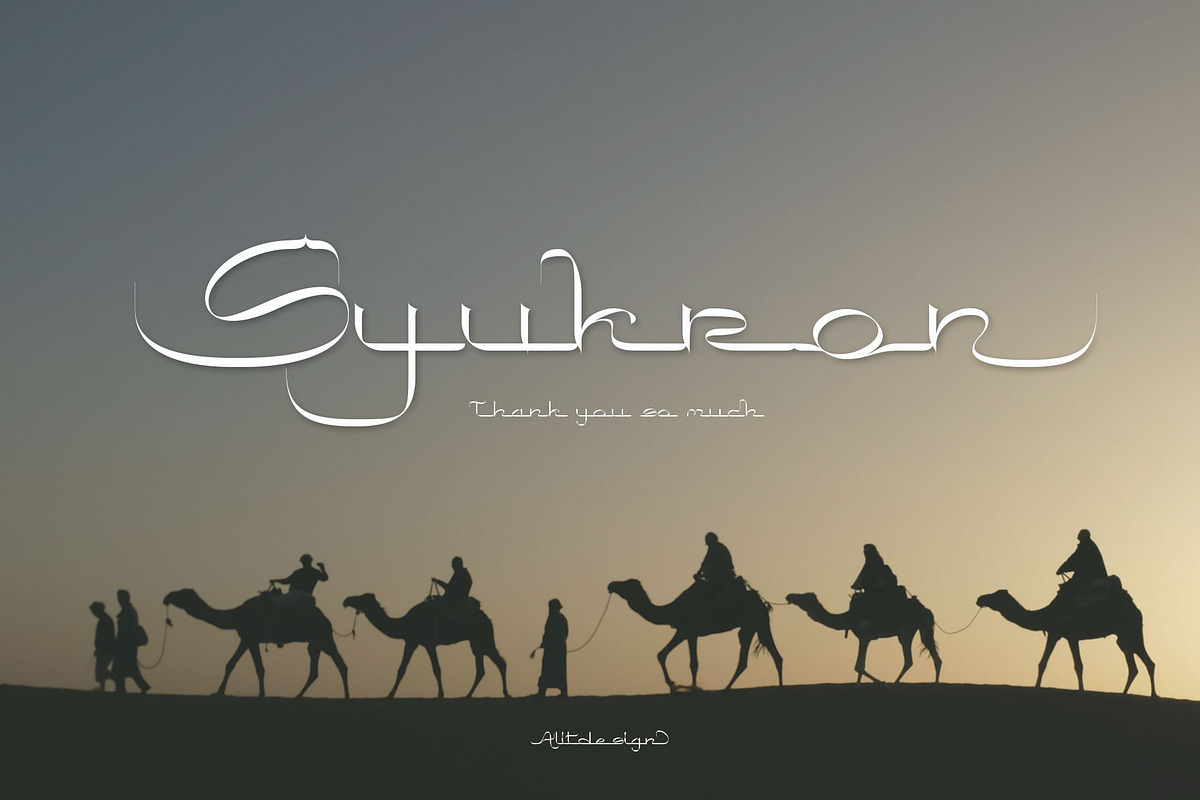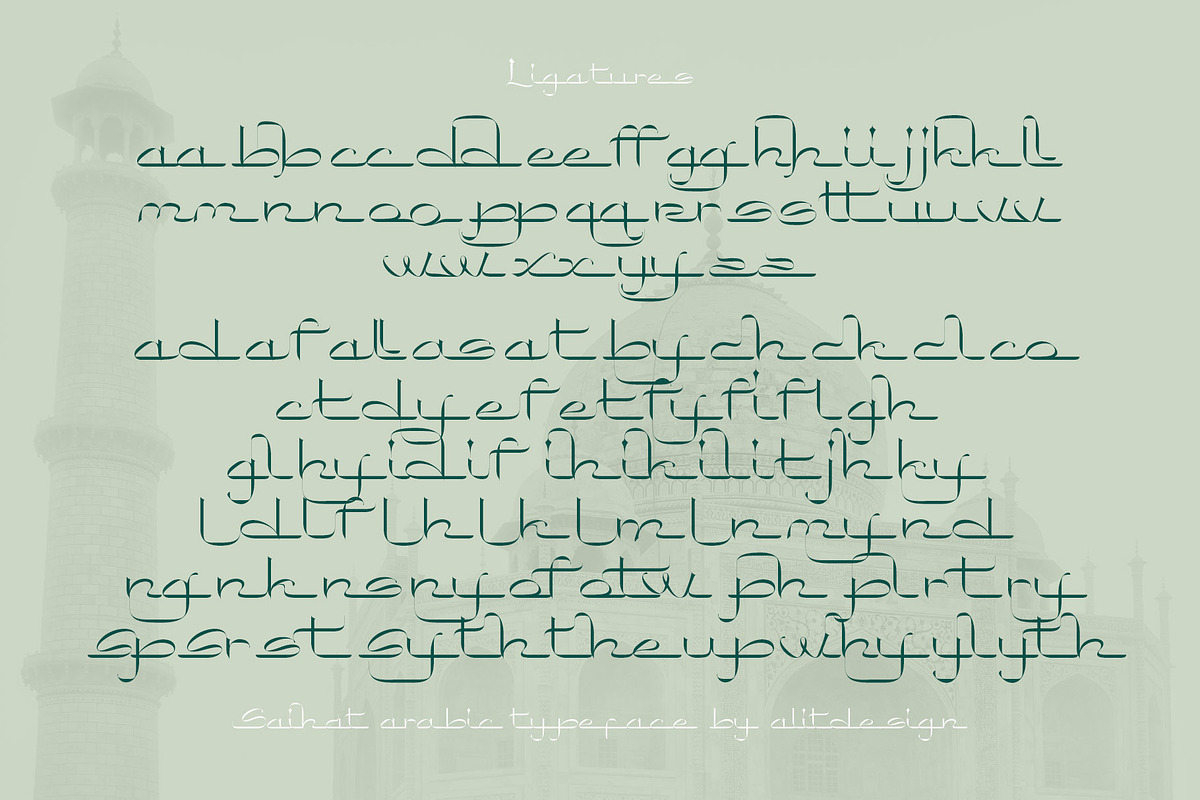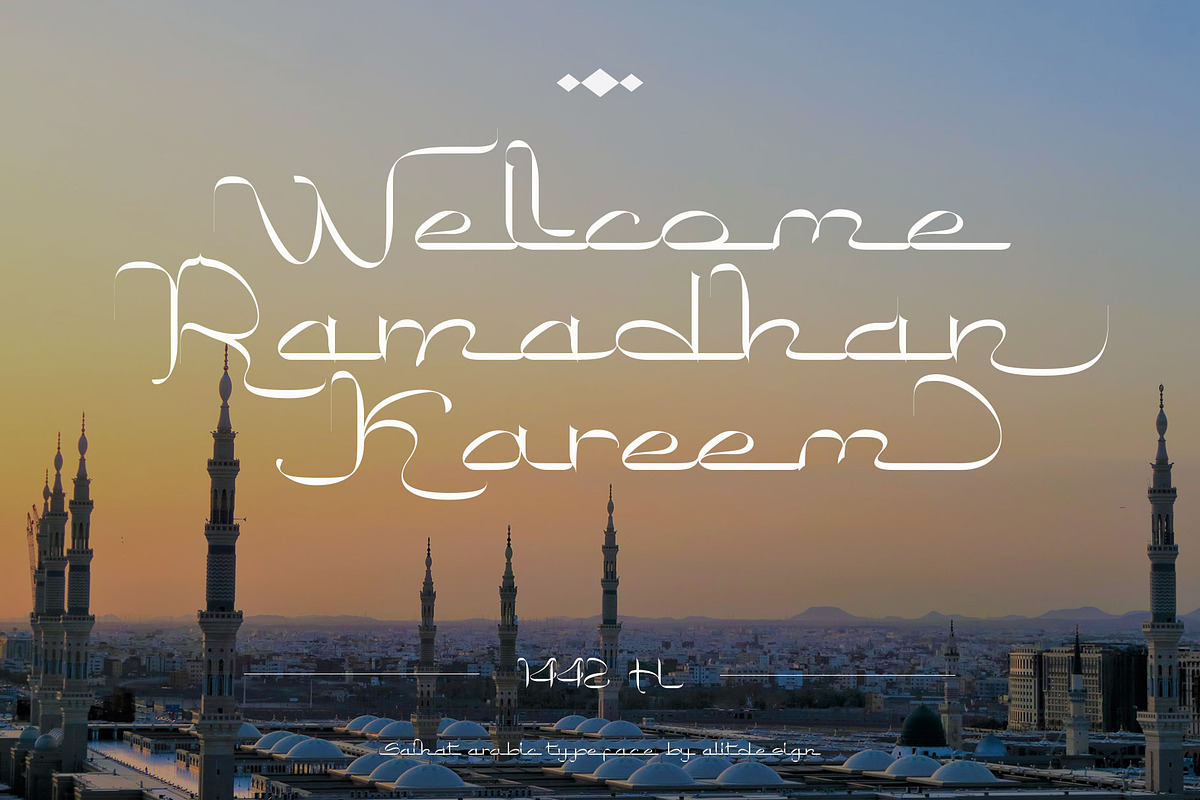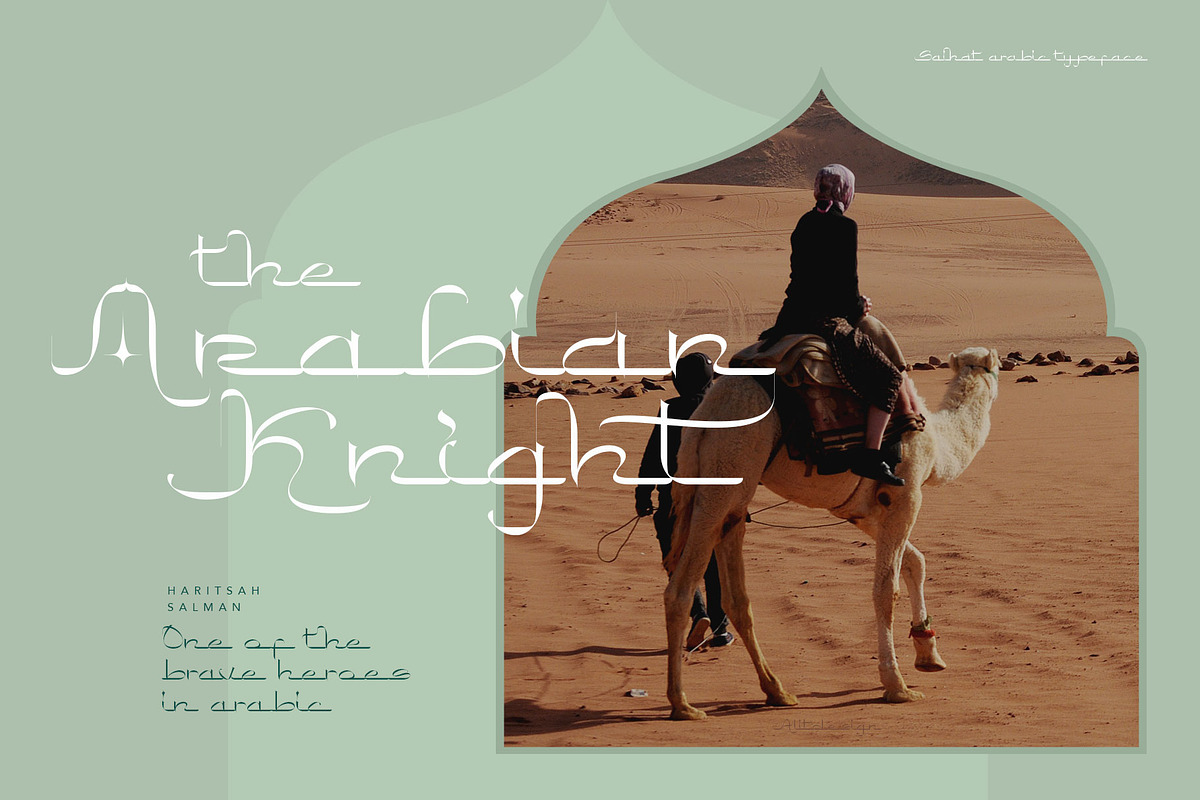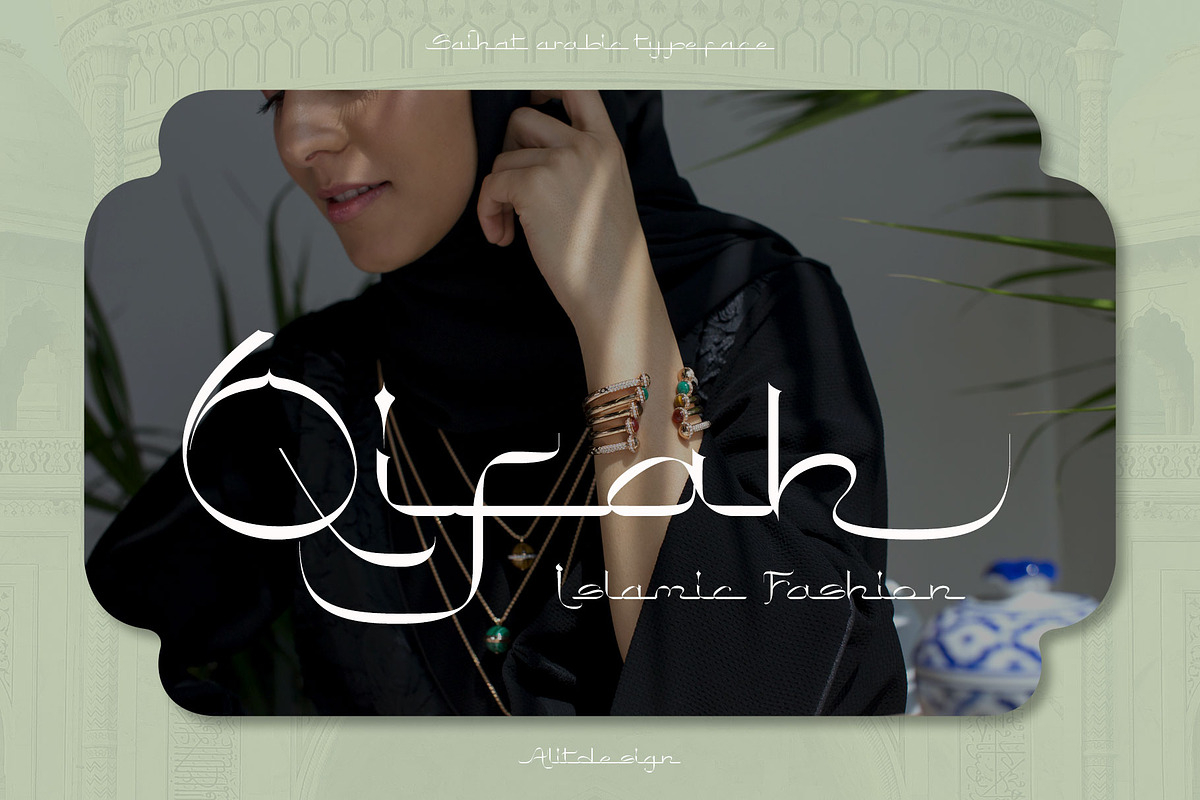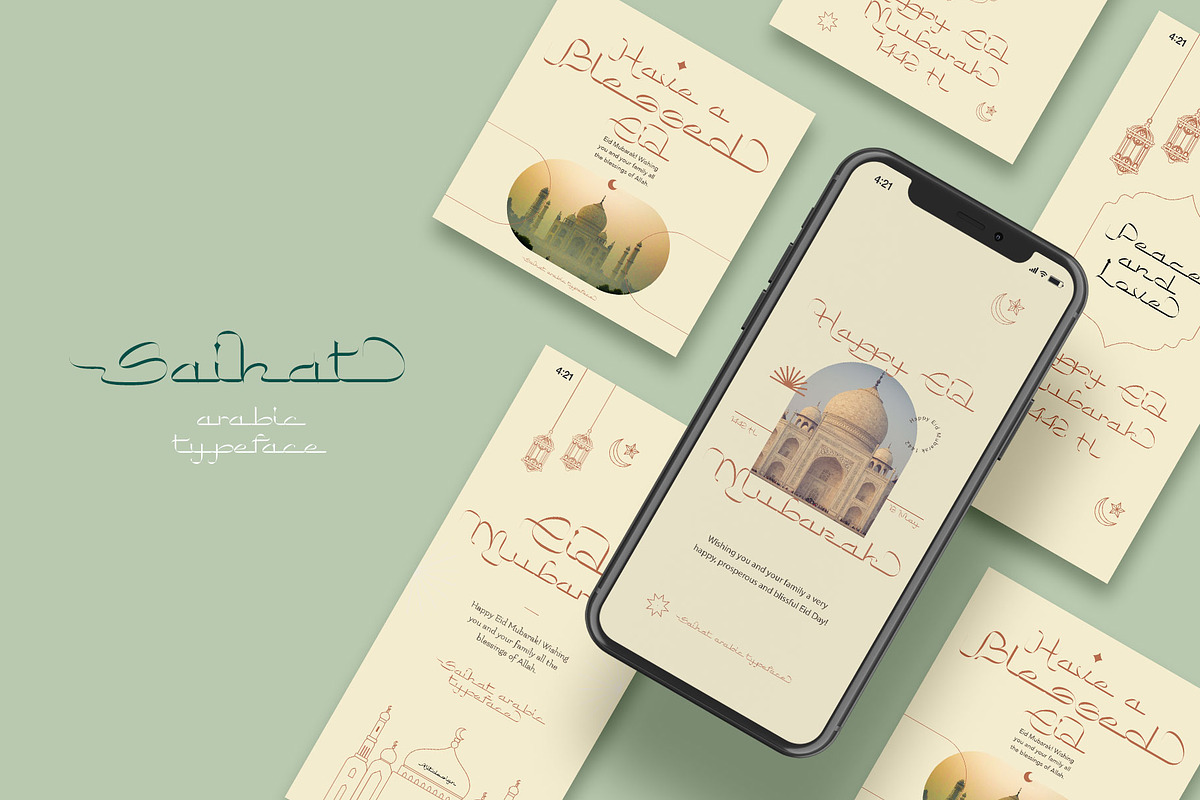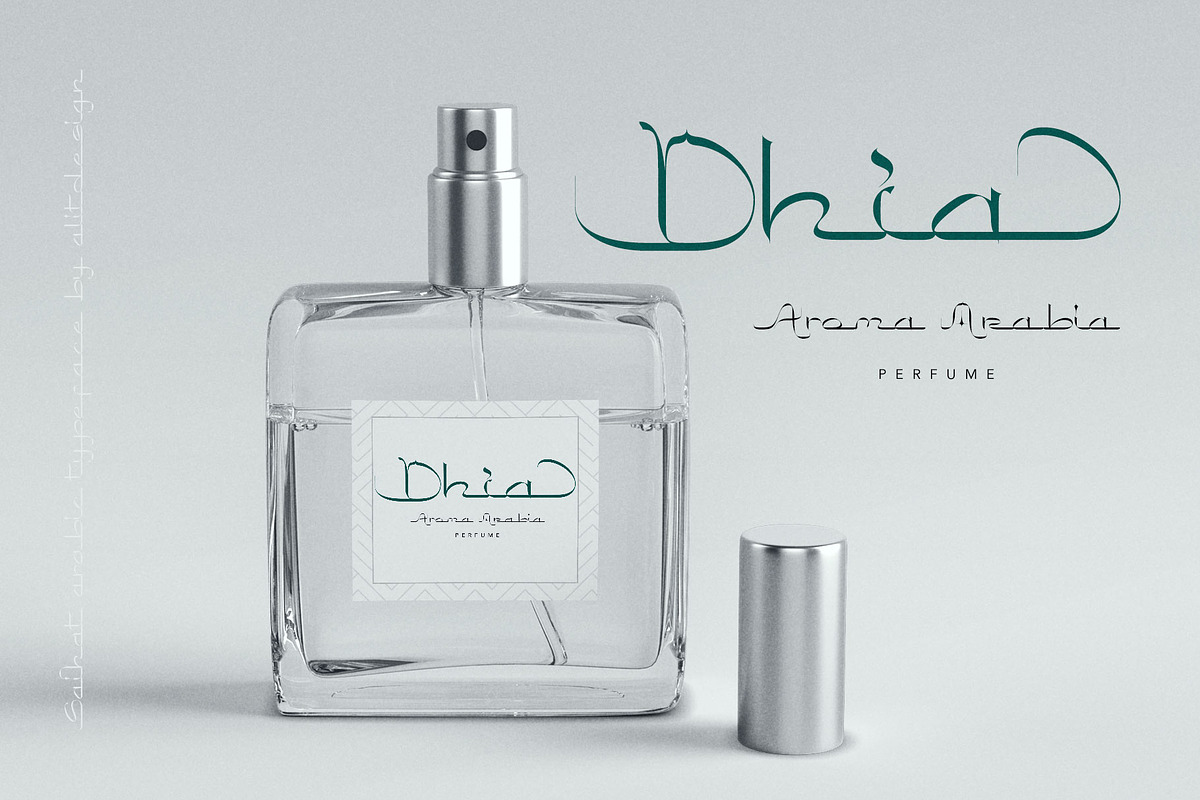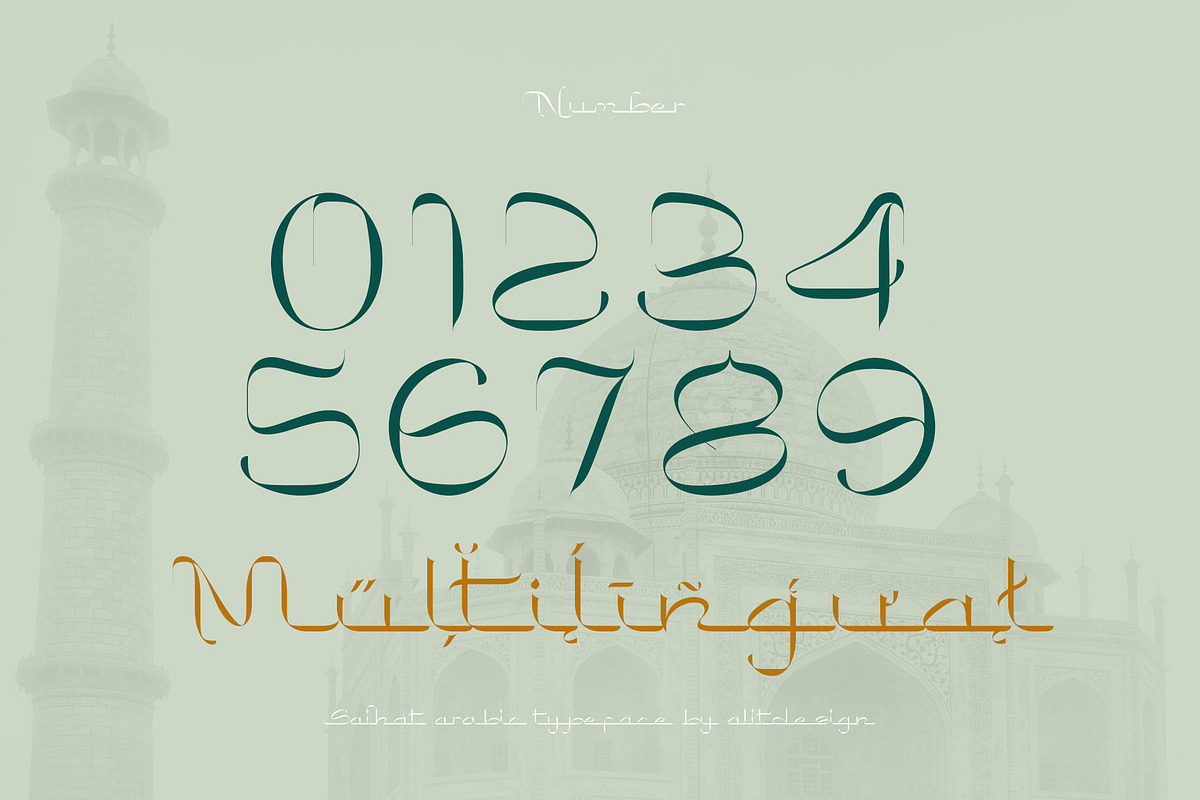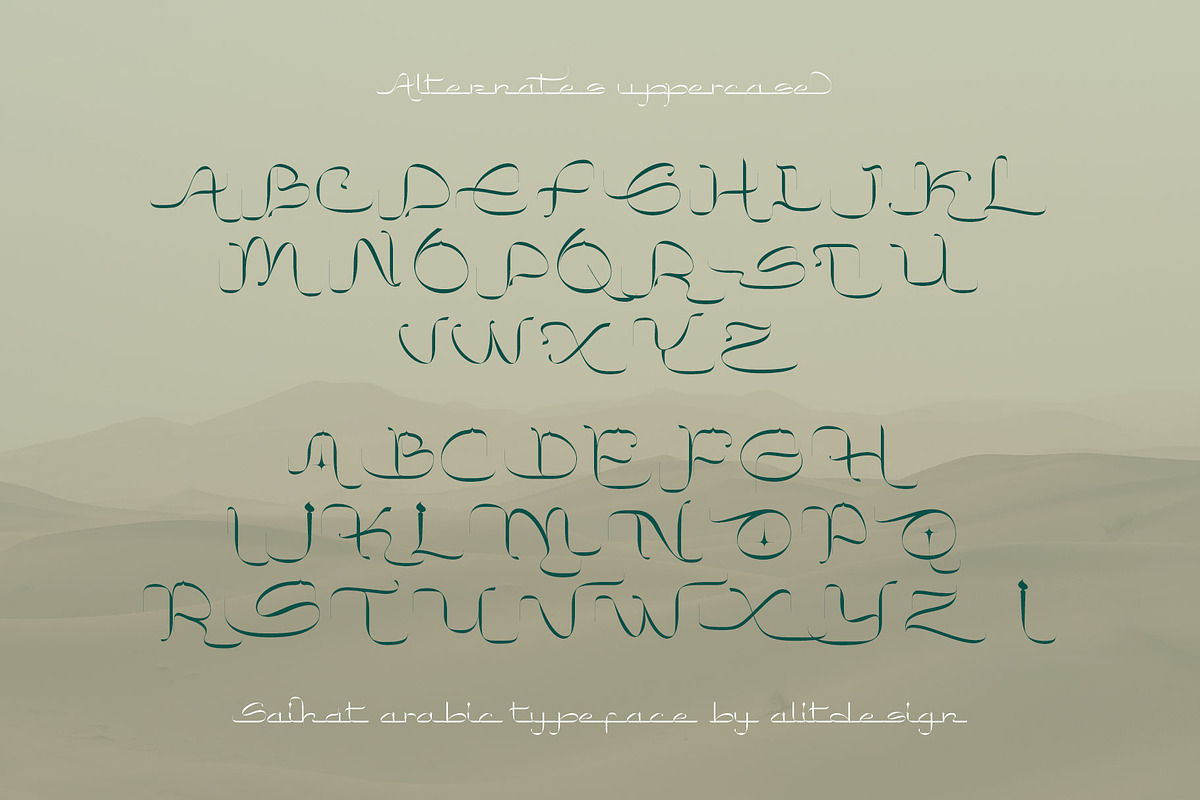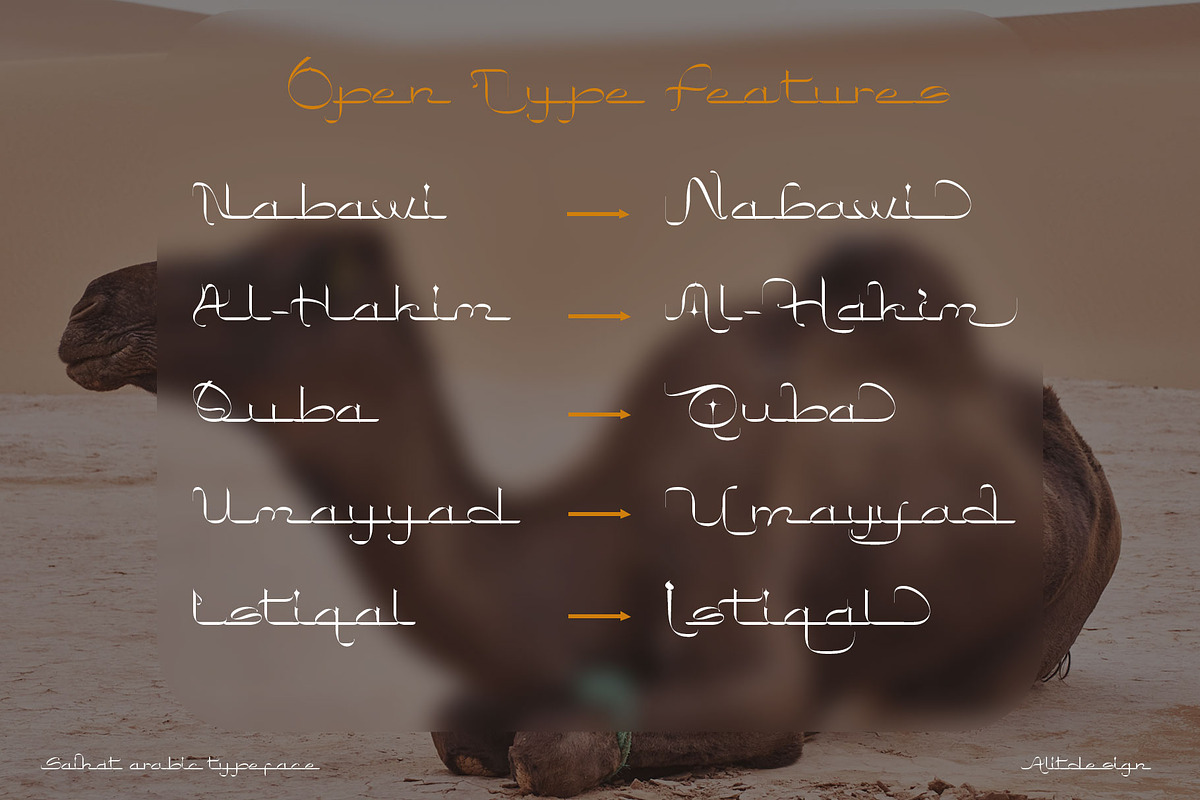
Saihat Arabic Typeface
The Saihat font is inspired by Arabic or Middle Eastern style calligraphy. This font is made with Latin characters so that it can be read internationally which does not have to be able to read Arabic characters. This font is perfect for Middle Eastern or Muslim designs. In addition, the Saihat font can also be used for other decorative design concepts.